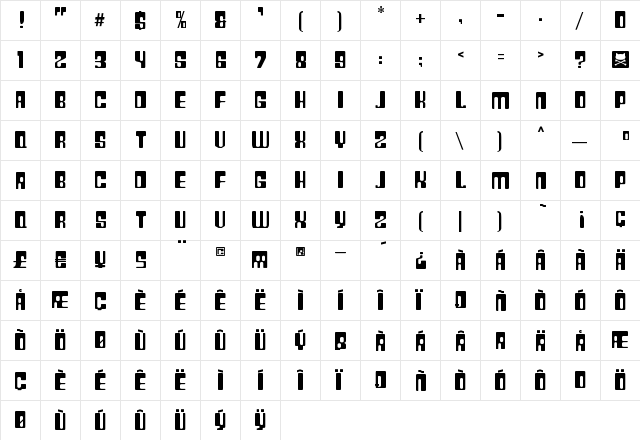
Plastic No.28 Regular
Design Context for Plastic No.28 Typeface
Plastic No.28 is a composed and adaptable typeface that performs quietly and consistently across a wide range of design contexts.